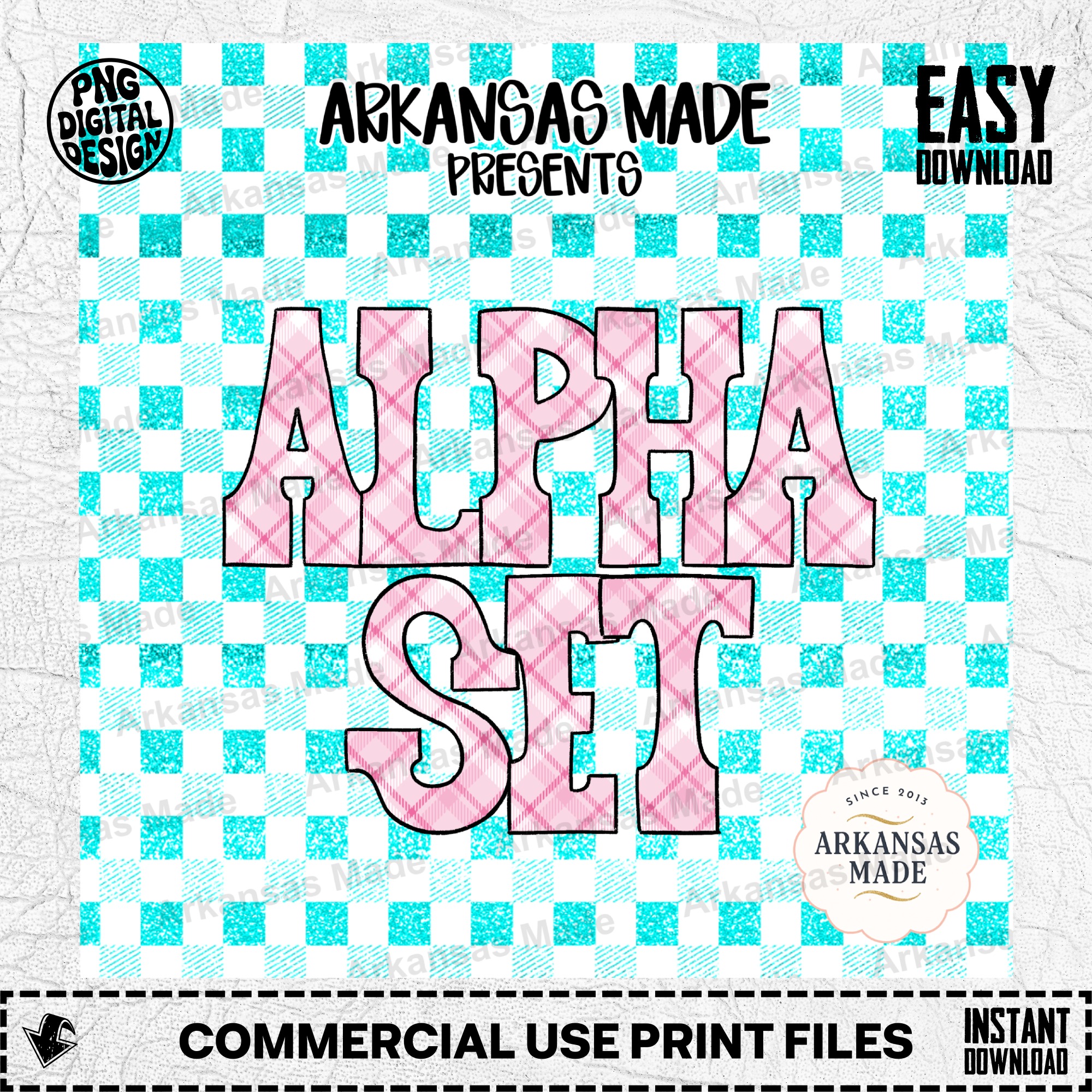
Plaid Alpha PNGs Set | Pink Tartan Alphabet Letters Digital Download for Sublimation & Crafts | Monogram Font Clip Art
Get creative with this charming Plaid Alpha PNGs Set, featuring a lovely pink tartan alphabet perfect for sublimation designs and digital crafting projects. This versatile digital download offers a full set of preppy monogram letters, ideal for personalizing gifts, creating custom apparel, or adding a cute touch to nursery decor. Inspire your DIY projects and craft unique items for birthdays, baby showers, or any special occasion with these instant-download clip art letters.